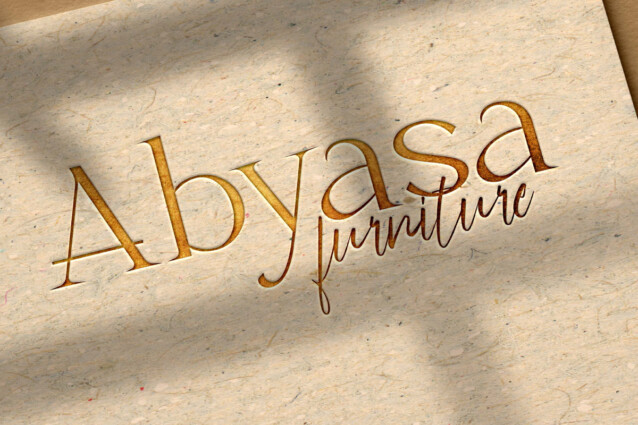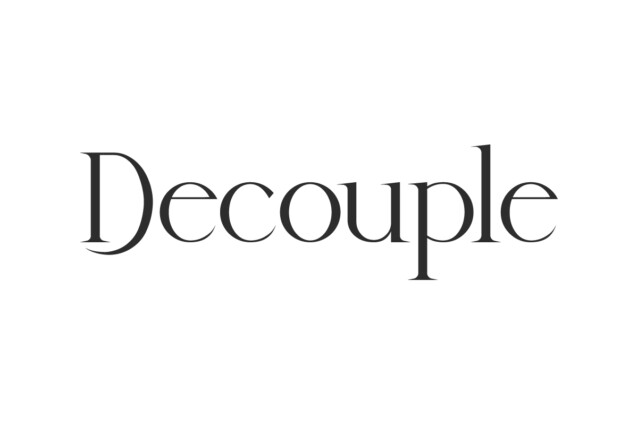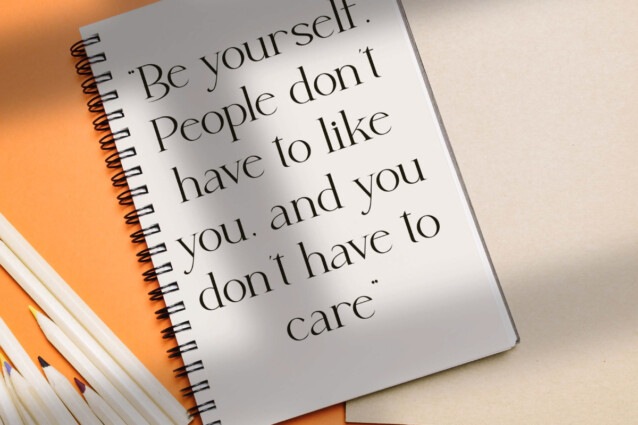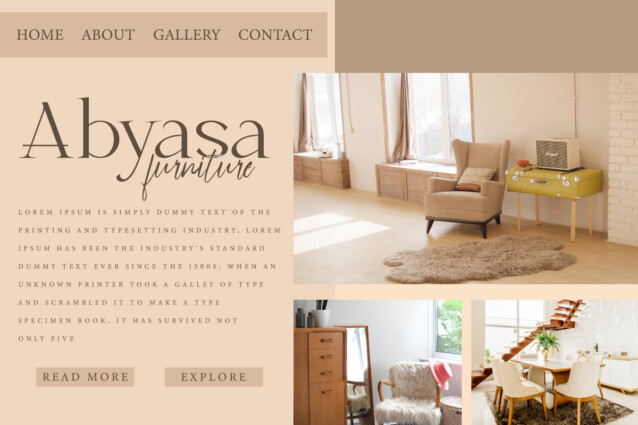
Decouple Font
Decouple Font is a classy minimalist serif display font with a modern look. It looks sophisticated so it will enhance your business, such as architect, bakery, boutique, café, construction, cosmetic, craftsman, event organizer, fashion, florist, furniture, interior design, jewelry, photography, printing, publishing, real estate, restaurant, skincare, spa salon, wedding, writer, etc.